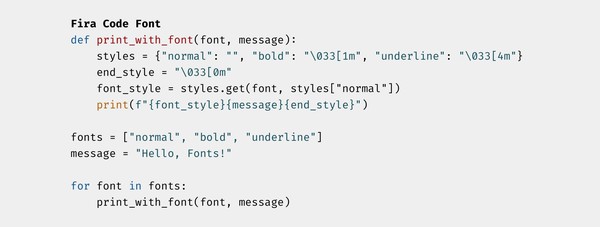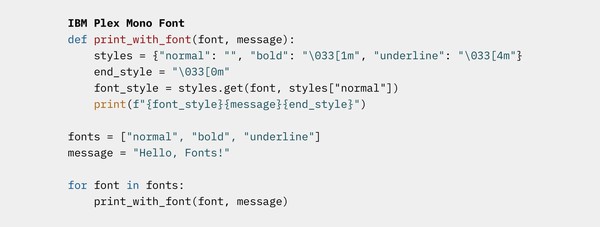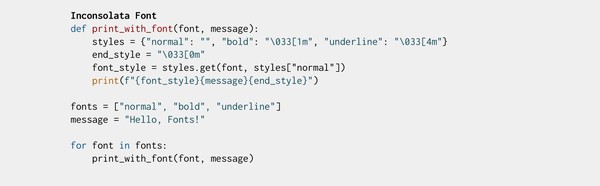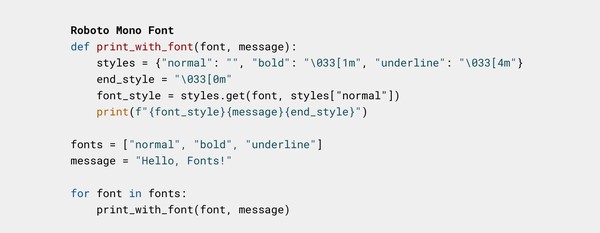
Top 6 Google Docs Fonts for Code
When it comes to coding, selecting the right font can significantly impact your productivity and comfort. The right font enhances readability, reduces eye strain during long coding sessions, and helps you spot errors more easily. While Google Docs might not be the first tool that comes to mind for coding, it can be a convenient platform for collaborating and sharing code snippets. In this article, we'll explore the top 6 Google Docs fonts that are well-suited for code, keeping your work both functional and visually appealing.
1. Fira Code
Fira Code is a favorite among developers for a reason. This monospaced font comes with programming ligatures that combine certain character pairs, making your code more visually elegant and readable. Ligatures like "->", "<=", and "!=" are transformed into single symbols, making complex expressions easier to comprehend. Fira Code's balanced design, coupled with ligatures, ensures a comfortable coding experience.
Python code example styled with Fira Code font
2. Source Code Pro
Source Code Pro is designed explicitly for coding. Its clean and legible characters are well-spaced, allowing you to clearly distinguish between different symbols. This monospaced font provides a harmonious balance between aesthetics and functionality, making it an ideal choice for writing and sharing code snippets in Google Docs.
Python code snippet in Source Code Pro font
3. Inconsolata
Known for its simplicity and clarity, Inconsolata is a classic monospaced font often favored by developers. The distinctiveness of each character ensures minimal confusion, even in complex code. Its straightforward design helps reduce eye strain during prolonged coding sessions, enhancing both readability and comfort.
Python code snippet with Inconsolata font
4. Roboto Mono
Derived from the popular Roboto font family, Roboto Mono retains the elegance of its parent font while offering a monospaced variant perfect for code. Its modern and clean design ensures that your code appears crisp and well-organized. Roboto Mono's balanced letterforms contribute to a visually pleasing and efficient coding environment.
Python code in Roboto Mono font
5. IBM Plex Mono
IBM Plex Mono is designed for readability and legibility, making it an excellent choice for coding purposes. As part of the larger IBM Plex font family, this monospaced font maintains consistency with its proportional counterparts while offering clear characters that are easy to differentiate. IBM Plex Mono ensures a seamless transition from traditional coding environments to Google Docs.
Python code sample using IBM Plex Mono font
6. Ubuntu Mono
A part of the Ubuntu font family, Ubuntu Mono brings simplicity and clarity to your code. Its straightforward design ensures that each character is easy to discern, promoting error-free coding. Whether you're working on personal projects or collaborating with a team, Ubuntu Mono's readability and elegance make it a solid choice.
Python code showcased in Ubuntu Mono font
Conclusion
While Google Docs might not be the first tool that comes to mind for coding, it can be a convenient platform for sharing and collaborating on code snippets. The right font can enhance readability, reduce eye strain, and make your coding experience more enjoyable. Whether you prefer the elegant ligatures of Fira Code, the clean lines of Source Code Pro, or the simplicity of Inconsolata, there's a Google Docs font that suits your coding style. Experiment with different fonts and find the one that resonates with you, ultimately helping you write better code and boosting your programming productivity.